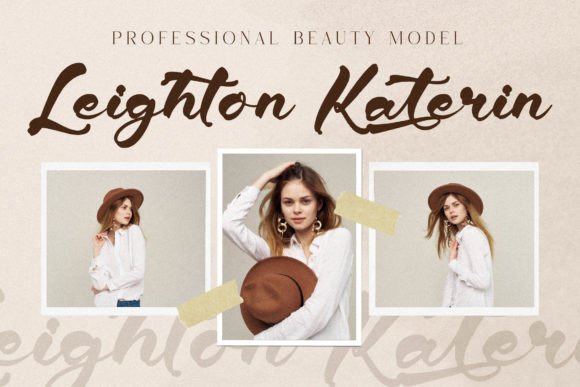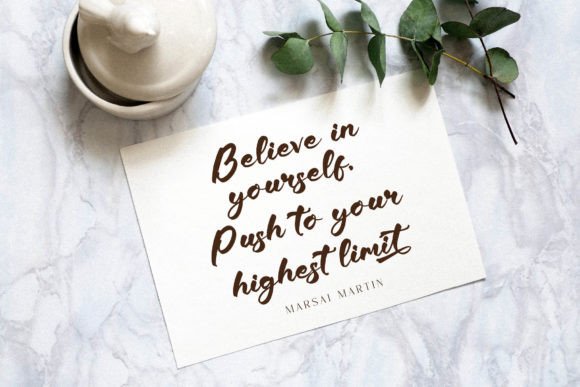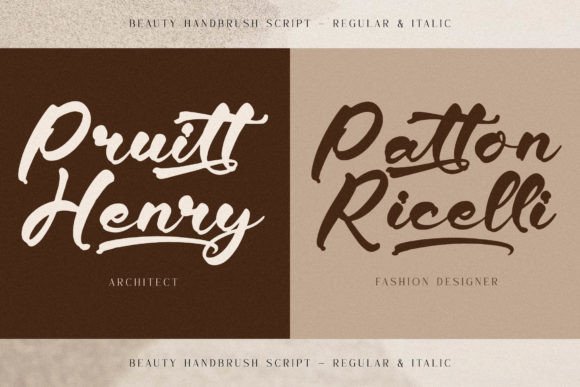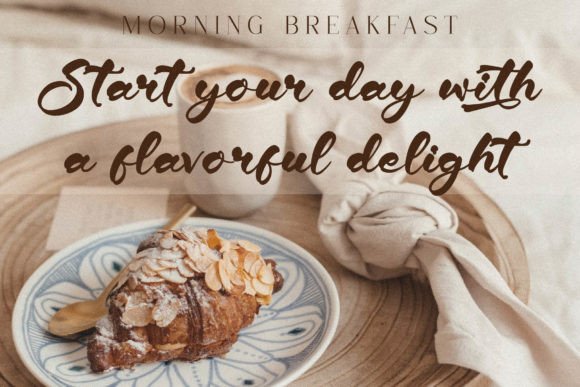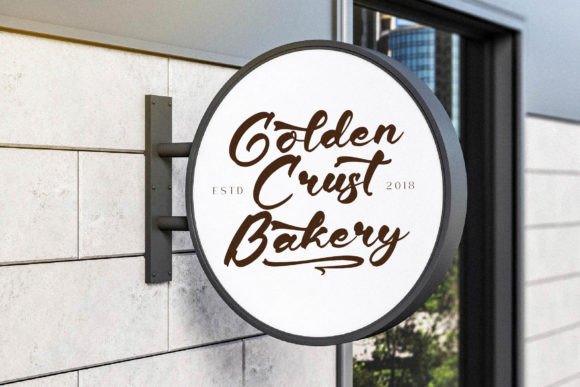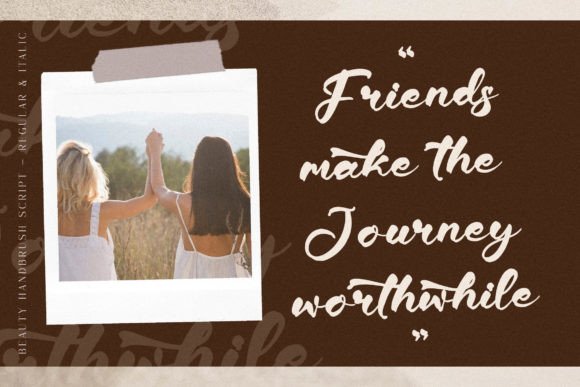
Introducing Flutery Crystale Font: Elevate Your Designs with Elegance
Are you a designer or crafter looking for a font that adds a touch of sophistication and whimsy to your projects? Look no further than Flutery Crystale, a stunning handbrush script font that is sure to elevate your designs. With its beautiful, flowing strokes and delicate texture, Flutery Crystale is the perfect choice for a wide range of projects, from logos and branding to homeware designs, product packaging, and more.
What Makes Flutery Crystale So Special?
Flutery Crystale is a unique and versatile font that offers a range of creative possibilities. Its handbrush script style gives it a personal and artistic feel, making it perfect for projects that require a touch of elegance and sophistication. The font’s delicate texture and flowing strokes also make it highly readable, even at small sizes.
Use Flutery Crystale for a Wide Range of Projects
Flutery Crystale is a highly versatile font that can be used for a wide range of projects, including:
- Logos and branding projects: Create a lasting impression with a custom logo that showcases your brand’s personality and style.
- Homeware designs: Add a touch of elegance to your homeware designs, from stationery to textiles.
- Product packaging: Make your products stand out on store shelves with beautiful, custom packaging.
- Mugs, quotes, posters, and more: Add a personal touch to your favorite items with Flutery Crystale.
- Shopping bags, t-shirts, and book covers: Create eye-catching designs that showcase your brand’s style.
- Name cards, invitation cards, and greeting cards: Add a touch of sophistication to your correspondence.
- Labels and photography: Use Flutery Crystale to add a personal touch to your labels and photography.
- Watermark and special events: Create custom watermarks and event materials that showcase your style.
Why Choose Flutery Crystale?
There are many reasons why Flutery Crystale is the perfect choice for your design projects. Here are just a few:
- Unique and elegant style: Flutery Crystale’s handbrush script style gives it a unique and elegant feel that is sure to elevate your designs.
- Highly versatile: Flutery Crystale can be used for a wide range of projects, from logos and branding to homeware designs and more.
- Easy to read: Despite its delicate texture, Flutery Crystale is highly readable, even at small sizes.
- Perfect for crafters and designers: Flutery Crystale is a great choice for crafters and designers who want to add a personal touch to their projects.
Tips for Using Flutery Crystale
Here are a few tips for getting the most out of Flutery Crystale:
- Experiment with different colors: Flutery Crystale looks great in a range of colors, from bold and bright to soft and pastel.
- Play with texture: Flutery Crystale’s delicate texture is one of its standout features – experiment with different textures to add depth and interest to your designs.
- Pair with other fonts: Flutery Crystale pairs well with a range of other fonts – try pairing it with a bold sans-serif for a striking contrast.
Flutery Crystale is a beautiful and versatile handbrush script font that is perfect for designers and crafters who want to add a touch of elegance and sophistication to their projects. With its unique style, high readability, and versatility, Flutery Crystale is sure to become a go-to font in your design arsenal. So why wait? Download Flutery Crystale today and start elevating your designs!